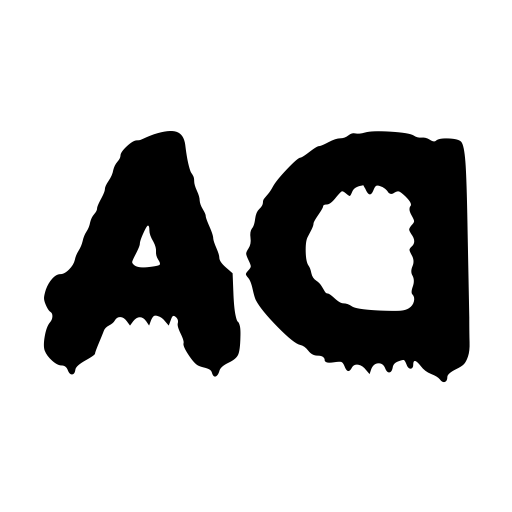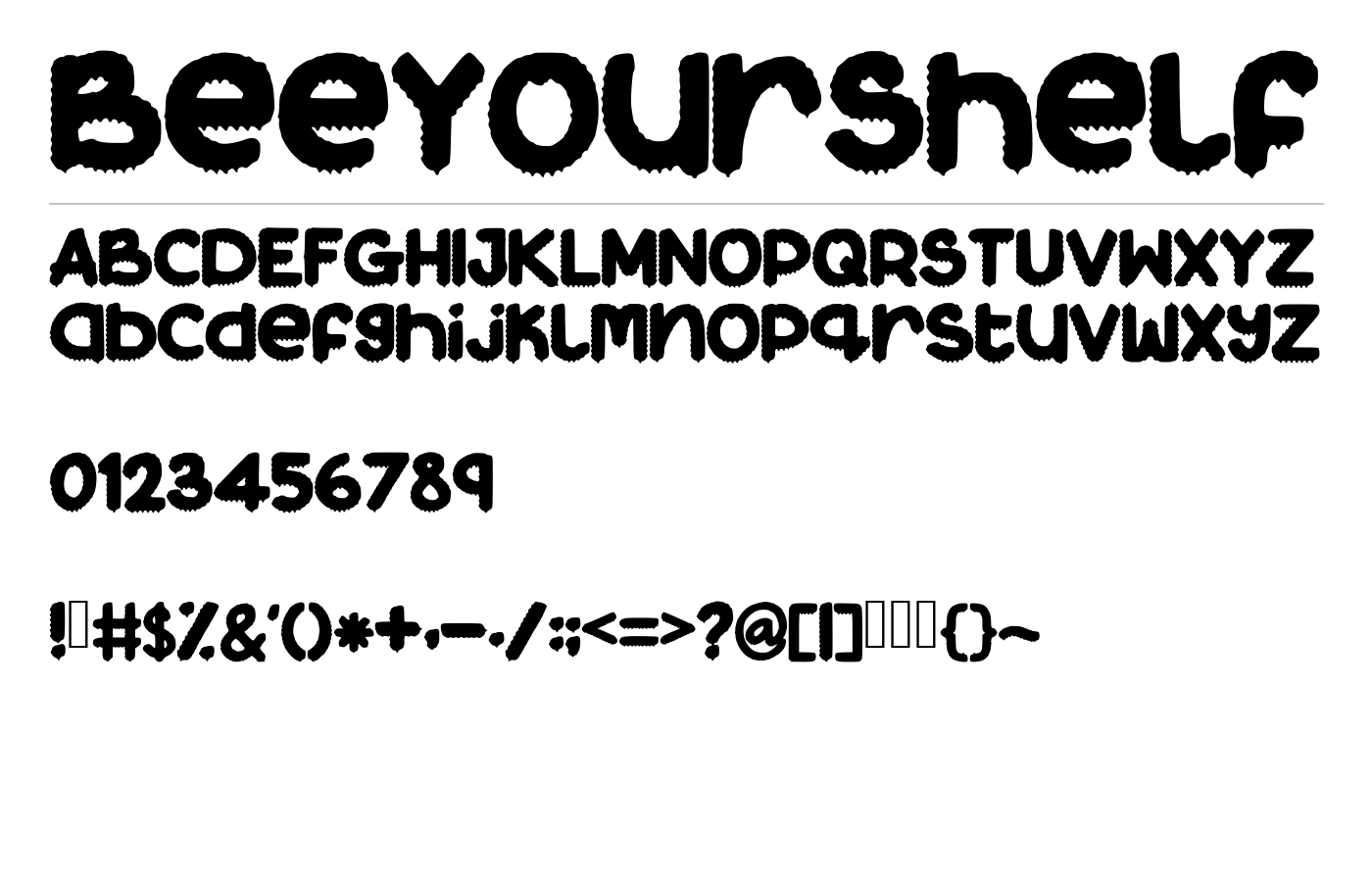
BeeYourShelf is a bold and playful sans serif font with a distinctive textured edge that gives it a hand-crafted, organic feel. Its rounded, chunky letterforms with consistent weight make it eye-catching and friendly, perfect for children’s materials, casual branding, or fun packaging. This font’s unique style adds personality and approachability, making it ideal for headlines, logos, and creative projects seeking a warm and lively look.
BeeYourShelf Font